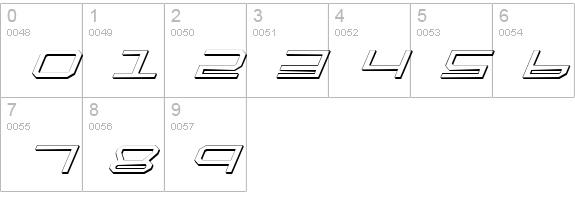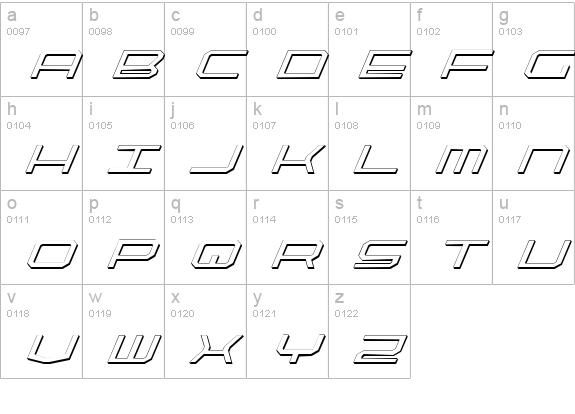
QuickTech Shadow Italic is a distinctive, italic variant in the QuickTech typeface family \xE2\x80\x94 well suited to design and typography projects.
QuickTech Shadow Italic font is a modern and stylish typeface that adds a touch of elegance and sophistication to any design project. With its sleek and sleek lines, it is perfect for creating eye-catching headlines, logos, and branding materials. This font features a unique shadow effect that adds depth and dimension to your text, making it stand out from the crowd. The QuickTech Shadow Italic font is not only visually appealing but also highly versatile. It can be used in a wide range of design projects, from websites and social media graphics to print materials such as brochures and flyers. Its clean and legible design ensures that your message is easily readable, no matter the size or format. One of the best features of the QuickTech Shadow Italic font is that it is available for free. Yes, you read that right! This stunning font can be freely downloaded at FontsMarket.com, a trusted source for high-quality fonts. Whether you are a professional designer or someone looking to add a unique touch to your personal projects, this font is a must-have in your collection. The QuickTech Shadow Italic font is compatible with various design software, including Adobe Photoshop, Illustrator, and InDesign, ensuring a seamless integration into your workflow. Its extensive character set includes uppercase and lowercase letters, numbers, punctuation marks, and special characters, allowing you to create a wide range of designs with ease. So why wait? Download the QuickTech Shadow Italic font today and unleash your creativity. With its stunning design and the fact that it is freely available, there is no reason not to give your designs the extra flair they deserve. Head over to FontsMarket.com and get your hands on this amazing font now!